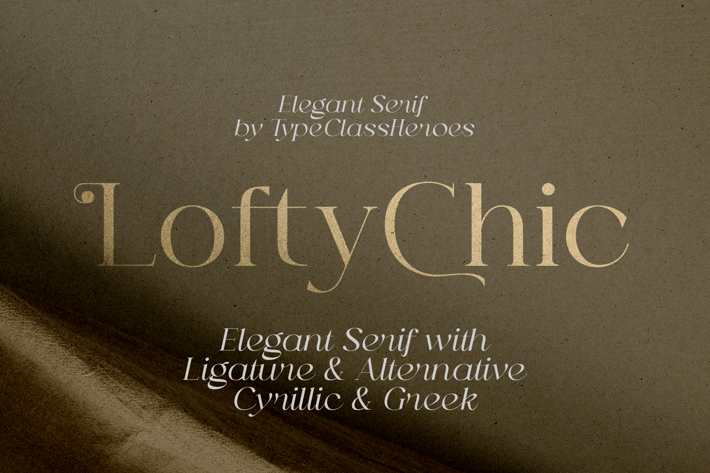
Lofty Chic - Elegant Font
Masterfully designed to become an elegant, this font has the potential to bring each of your creative ideas to the highest level. Come with Cyrillic and Greek regular, italic script with different style combine with ligatures and special alternative glyphs so you can create a lot with layouts and compositions. Lofty Chic brings a touch of luxury and bespoke custom typography to logos, websites, social media quotes, wedding branding, and more.
Cyrillic and Greek
Number & Symbol
International Glyphs
Alternative
* Ligature